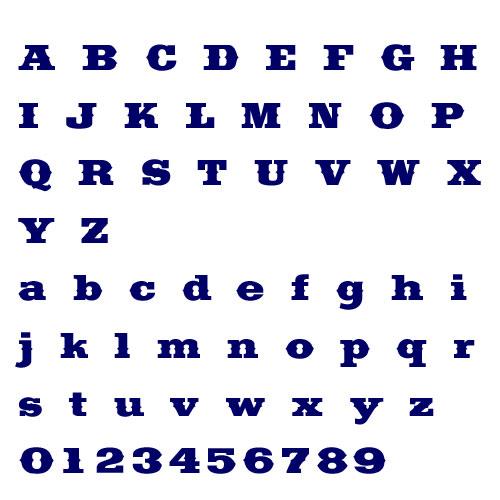
Fireside Threads is happy to present Saddlebag Embrilliance machine embroidery font which has Classic block machine embroidery font with bold, solid-filled letters. Ideal for stitching on saddle bags and similar surfaces. Compatible with BX font and Embrilliance formats. included. If you would like to view more embroidery fonts and alphabets please search our embroidery fonts page.